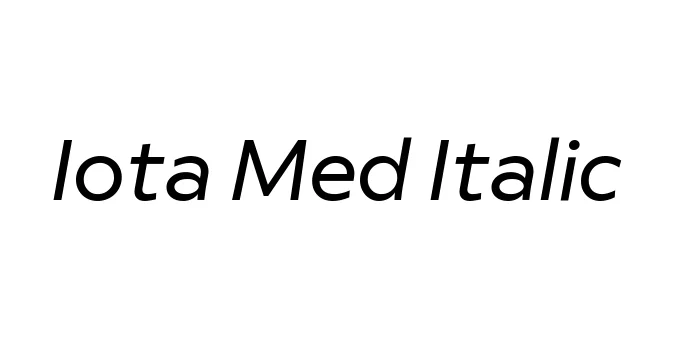
Iota Med Italic
Designed by Paul Lloyd
Iota Med Italic is a refined geometric sans-serif typeface that emphasizes clarity and monolinear structure. Designed by Paul Lloyd, this font family is part of a larger series that draws inspiration from the early 20th-century obsession with geometry and industrial design. The 'Med' (Medium) weight provides a balanced presence that is neither too delicate nor too heavy, making the italic variant particularly effective for adding emphasis without sacrificing readability.
The italicized form of Iota is not merely a slanted version of the upright; it features subtle optical adjustments that maintain the minimalist aesthetic of the typeface. It is widely recognized for its clean lines and open counters, which make it a favorite among graphic designers looking for a modern, functional typeface that works well in both digital and print environments. Its versatility allows it to transition seamlessly from technical manuals to high-end fashion branding.
Iota Med Italic Best Uses
Perfect for captions, pull quotes, and emphasized text in magazine layouts.
Ideal for logo marks and corporate identities that require a clean, technological feel.
Highly legible for navigational elements and interface buttons.
Excellent for brochures and flyers where a contemporary look is desired.